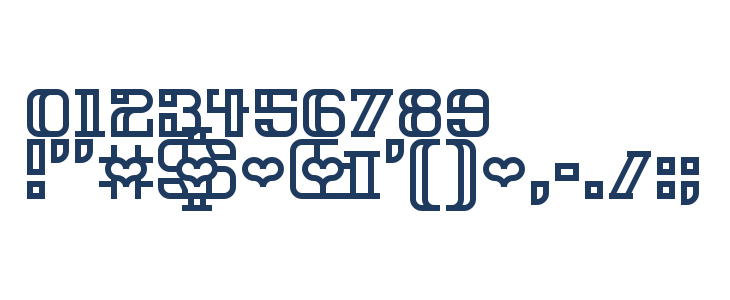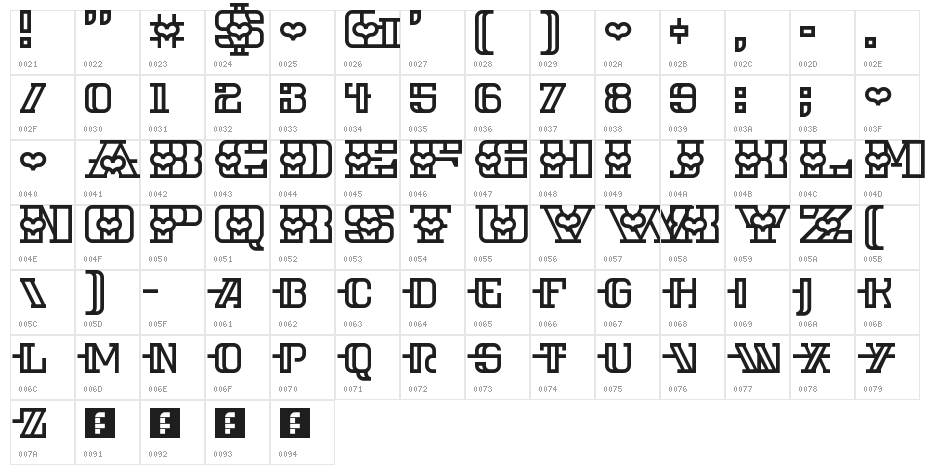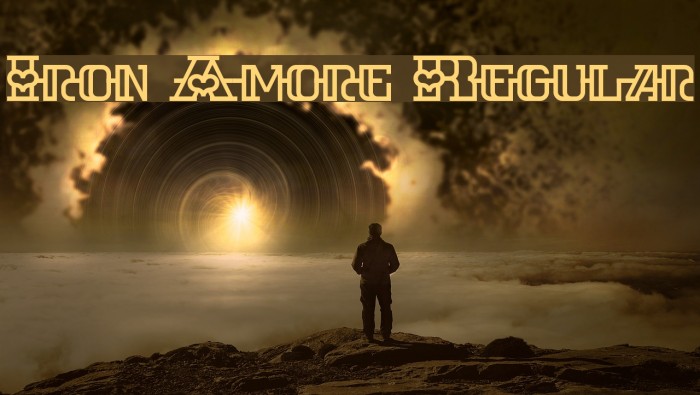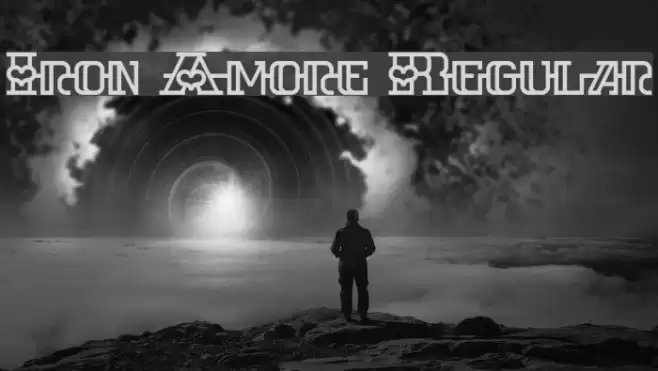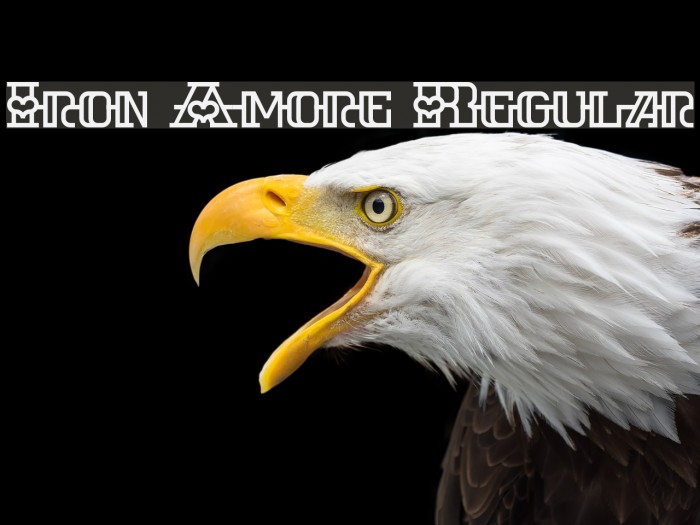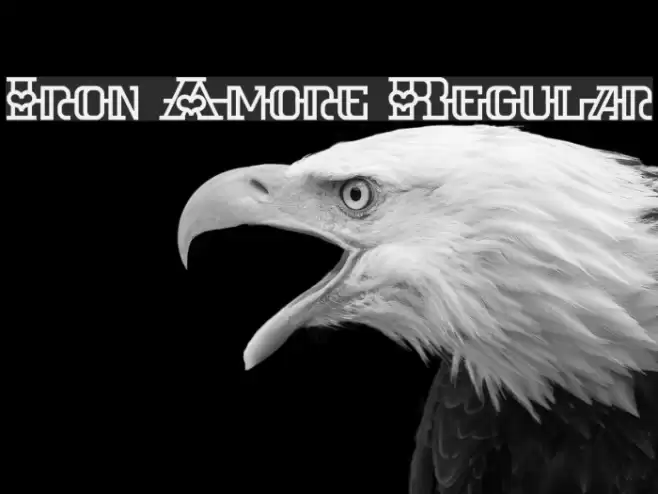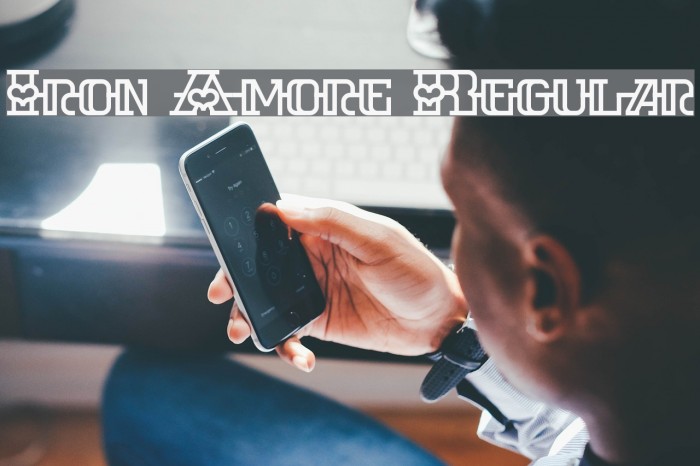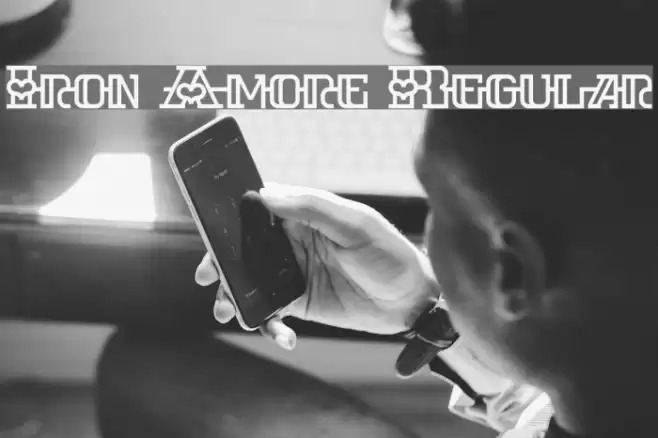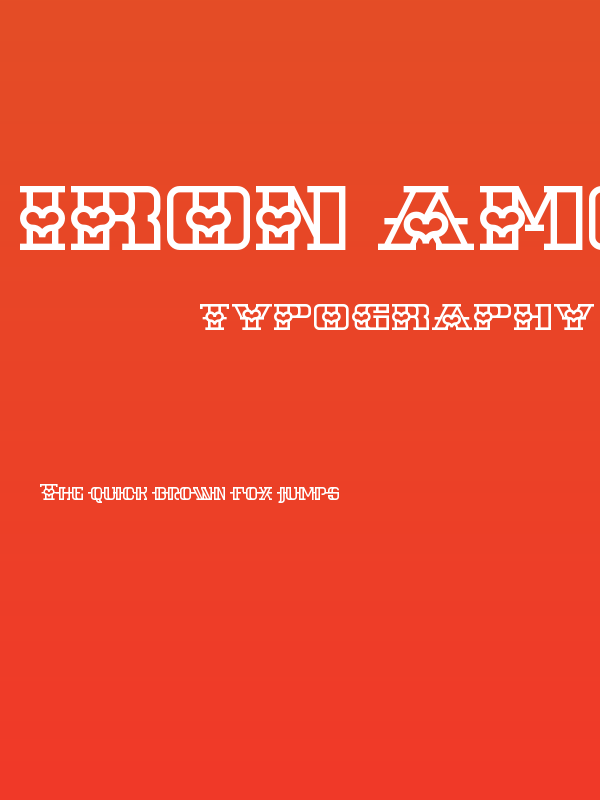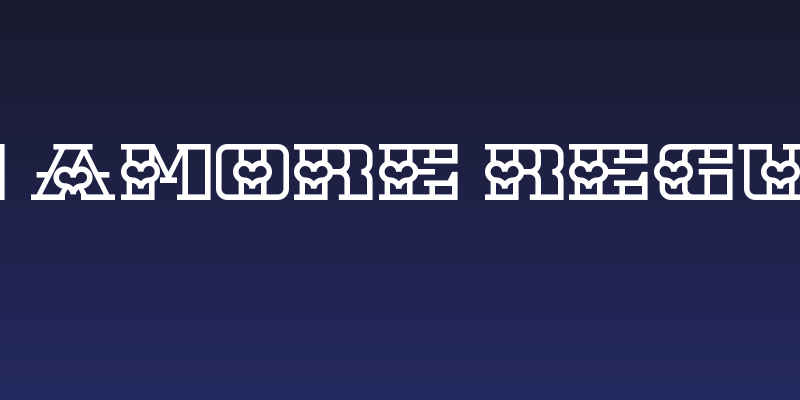
Iron Amore Regular Font
Iron Amore Regular Description
This font features a bold, geometric design with a strong industrial feel. The uppercase letters are crafted with intricate patterns and cutouts, creating a sense of depth and complexity. The lowercase letters maintain a similar style, ensuring consistency across the typeface. Numbers and special characters are equally bold and stylized, making them stand out in any design. The overall look is modern and edgy, suitable for projects that require a striking visual impact. The font's unique style makes it ideal for branding, posters, and any creative work that seeks to capture attention.
| Proposed Projects | Ideal for branding, posters, album covers, and creative projects needing a bold statement. |